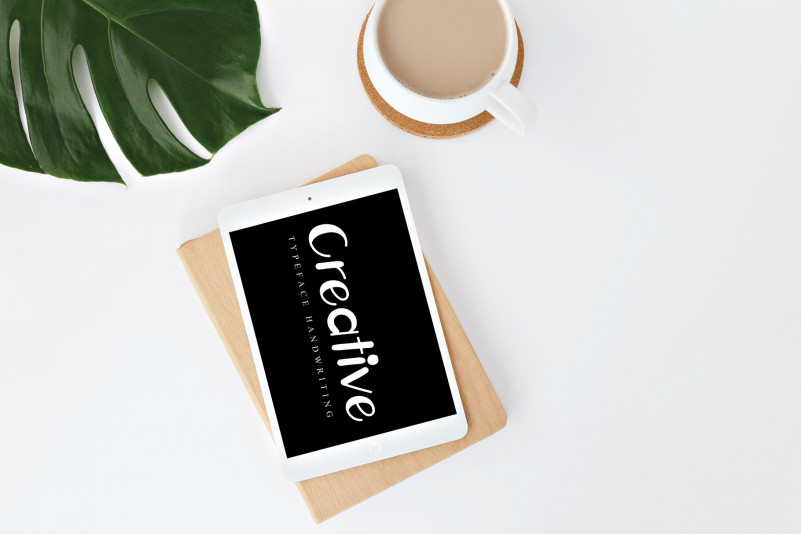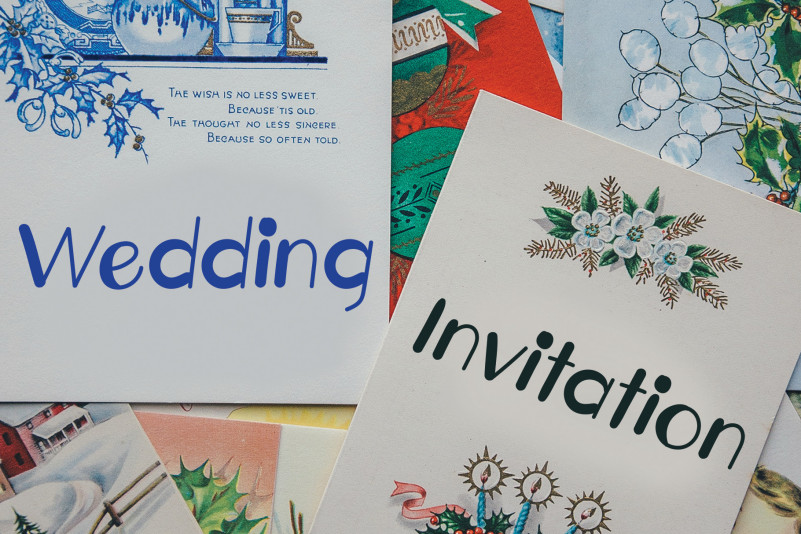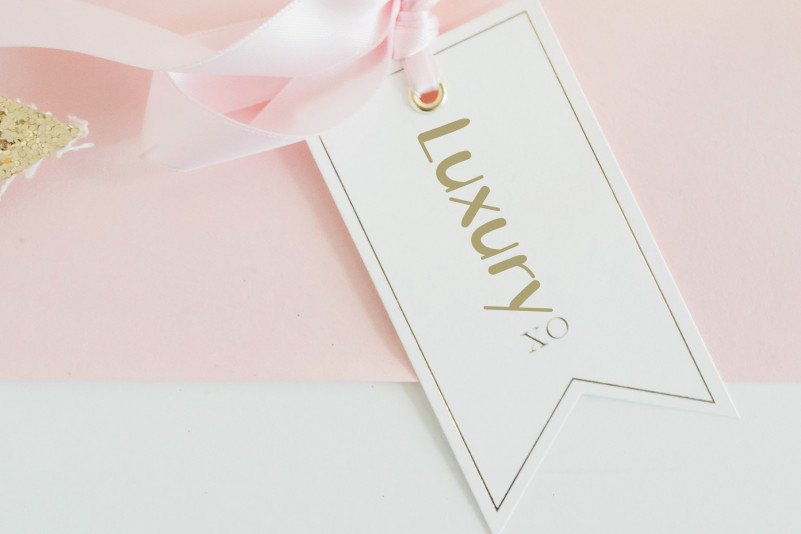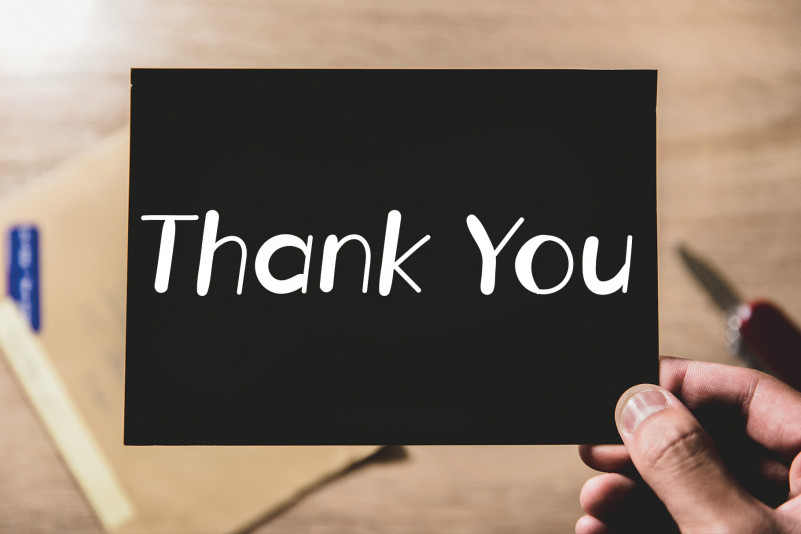
Thistle Flower Display Font
Thistle Flower Display Font is a simple and round lettered handwritten font. Cute and smooth, this font will make your designs stand out of the crowd!